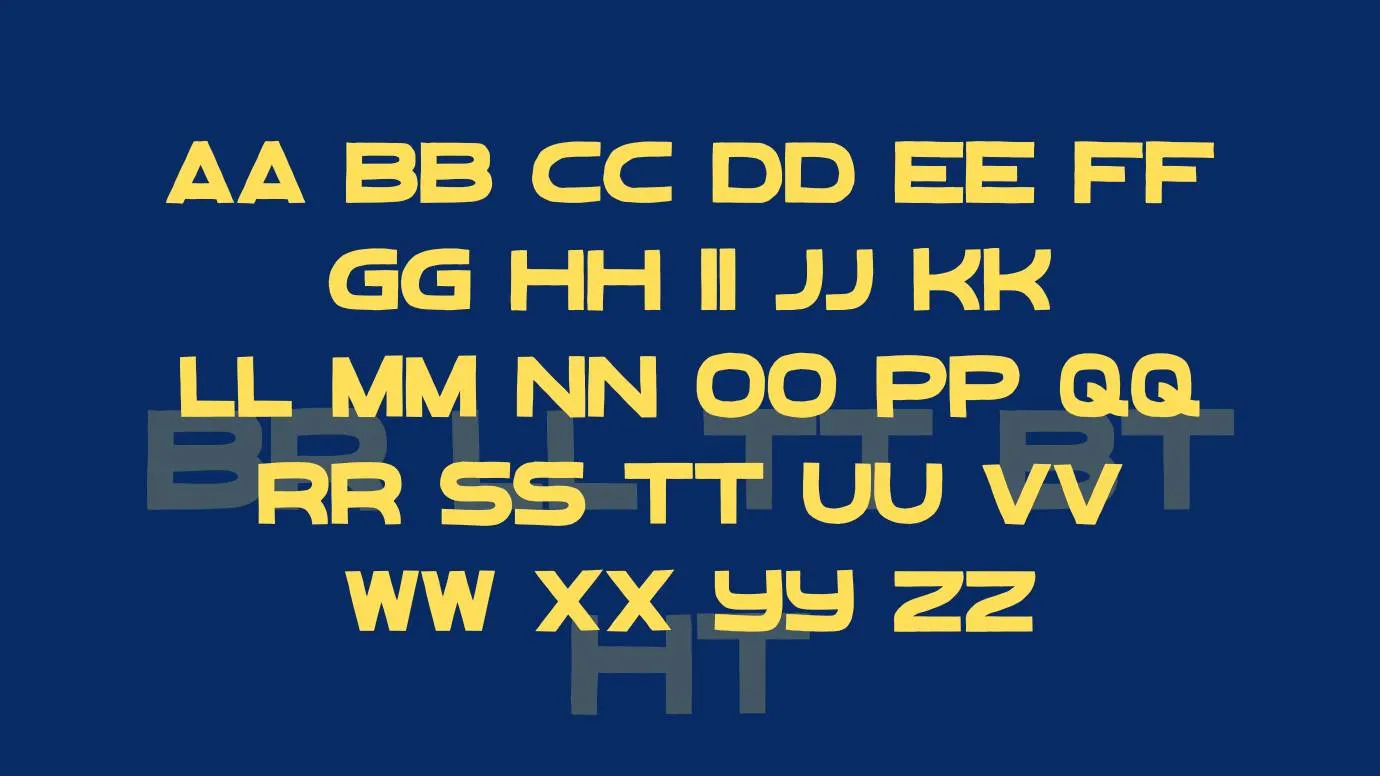
Font Introduction
Bebal Font
Bebal Font Family is a famous and unique display typeface. The glyphs of this font attract people to your different types of projects. This fantastic display font was designed by Freeject with unique weights and different styles. This texture is attainable in both OTF and TTF file structures.
Details of Font
NameBebal Font
TypeDisplay
DesignerFreeject
What kind of font is Bebal Font?
This is a display-type font that has unique and bold characters. Freeject is the basic typographic designer of this typeface.
Is there any similar font to Bebal Font?
This font family has many similar fonts that are good for pairing with this font such as spy agency font which is so attractive texture.